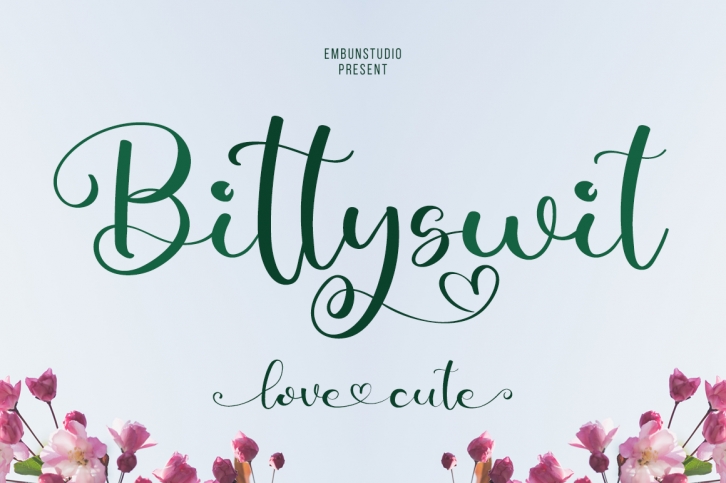
BittySwit is a romantic handwritten font featuring swirly characters and a playful vibe. Add it to wedding invitations, photography, thank you cards, watermarks, and other cute projects! This font is PUA encoded which means you can access all of the glyphs and swashes with ease!